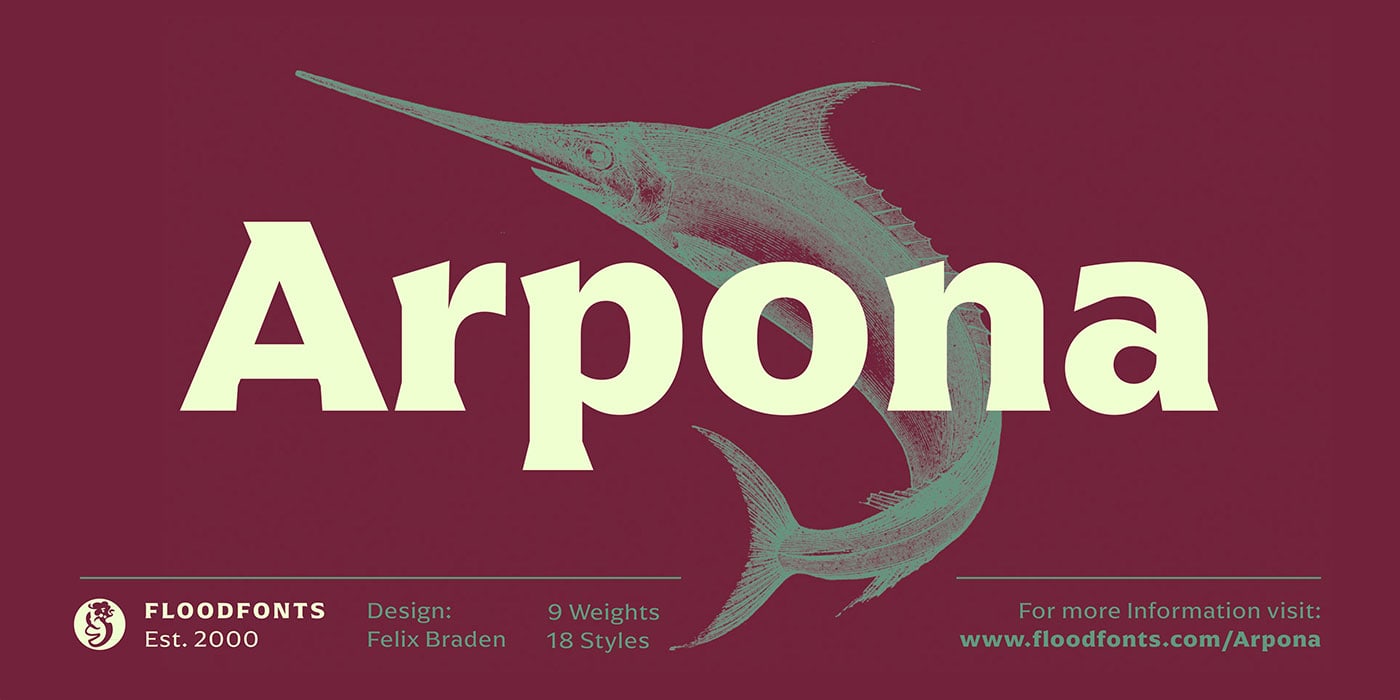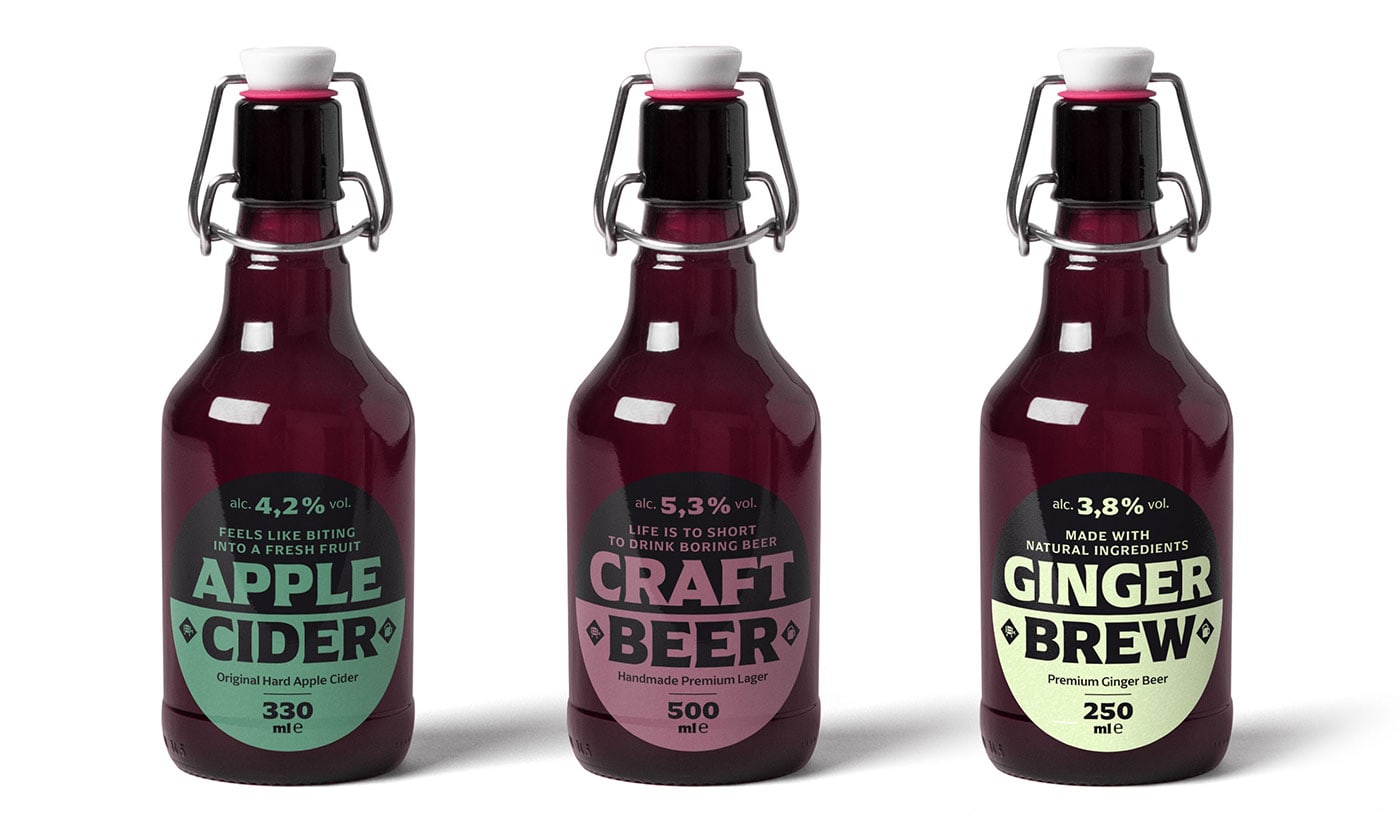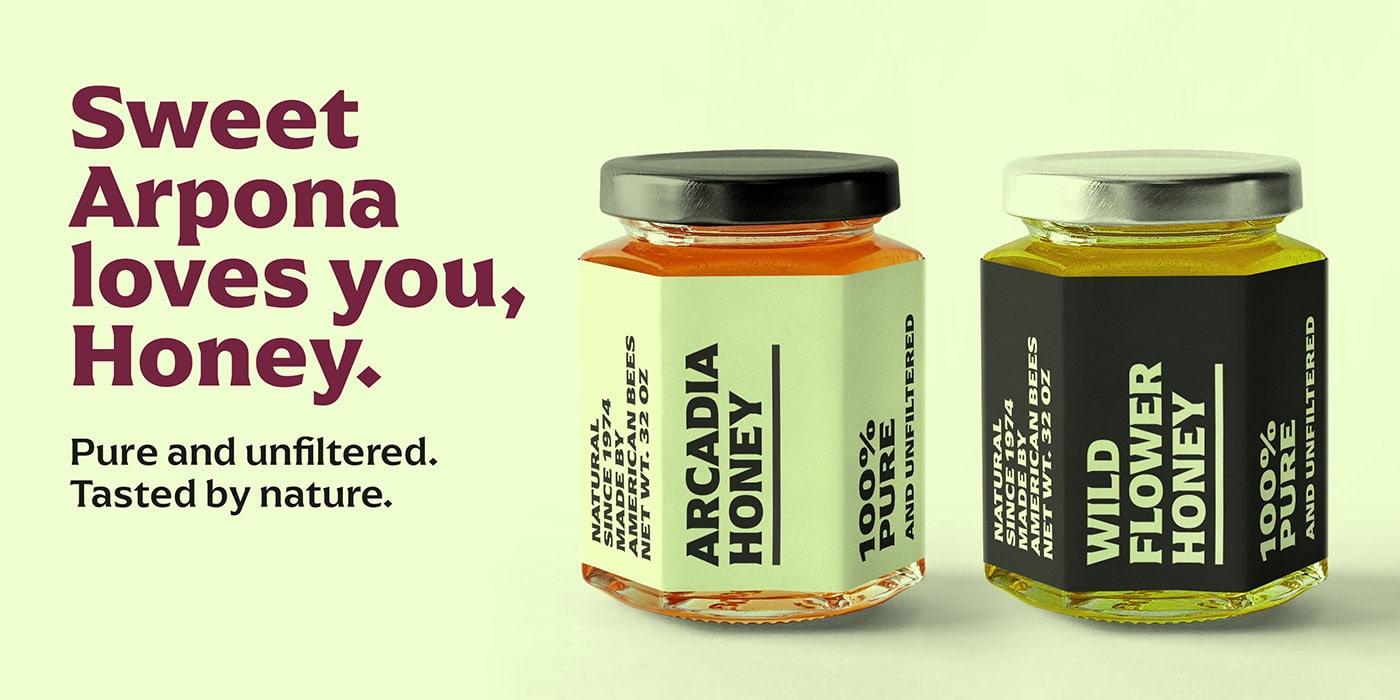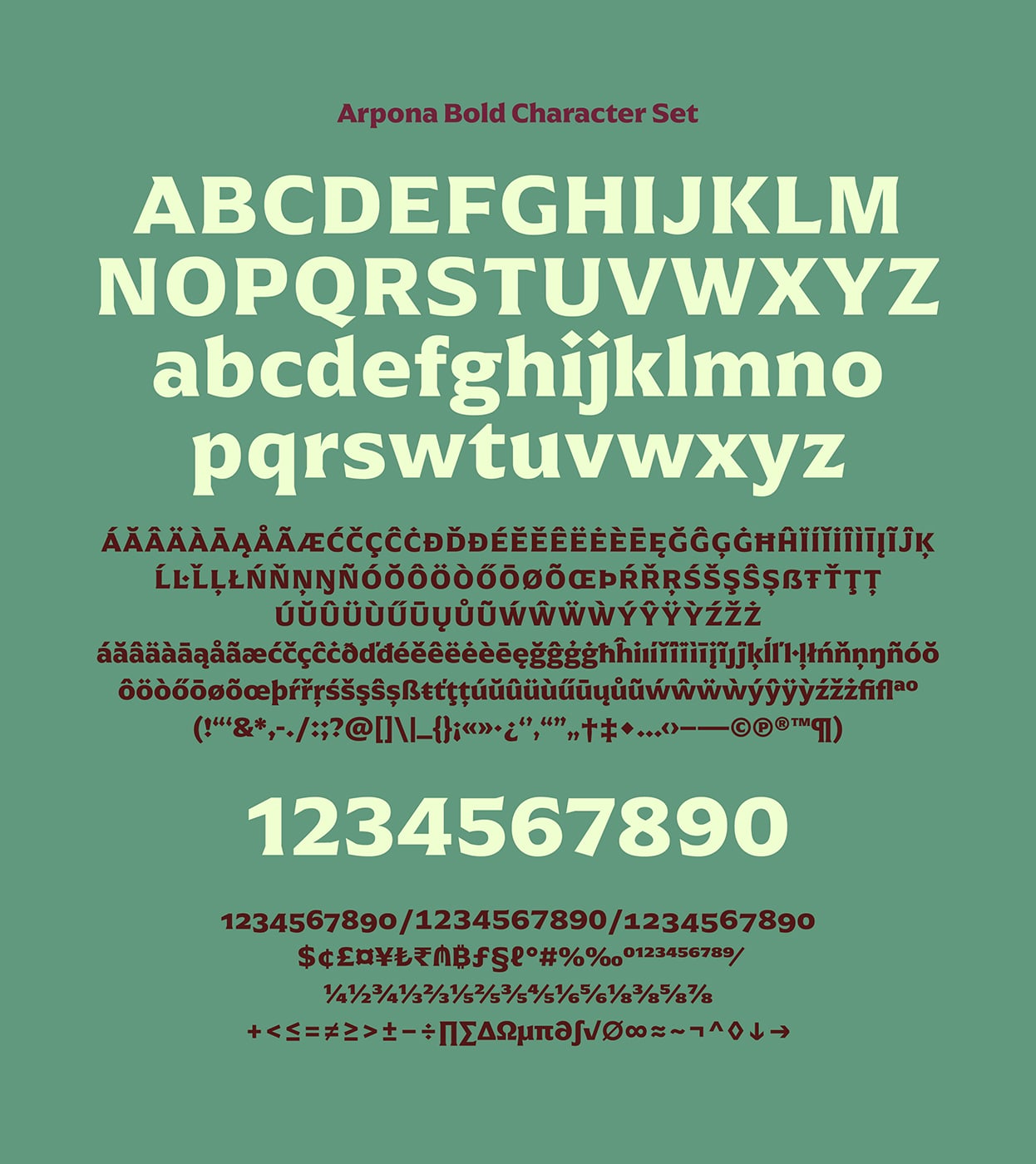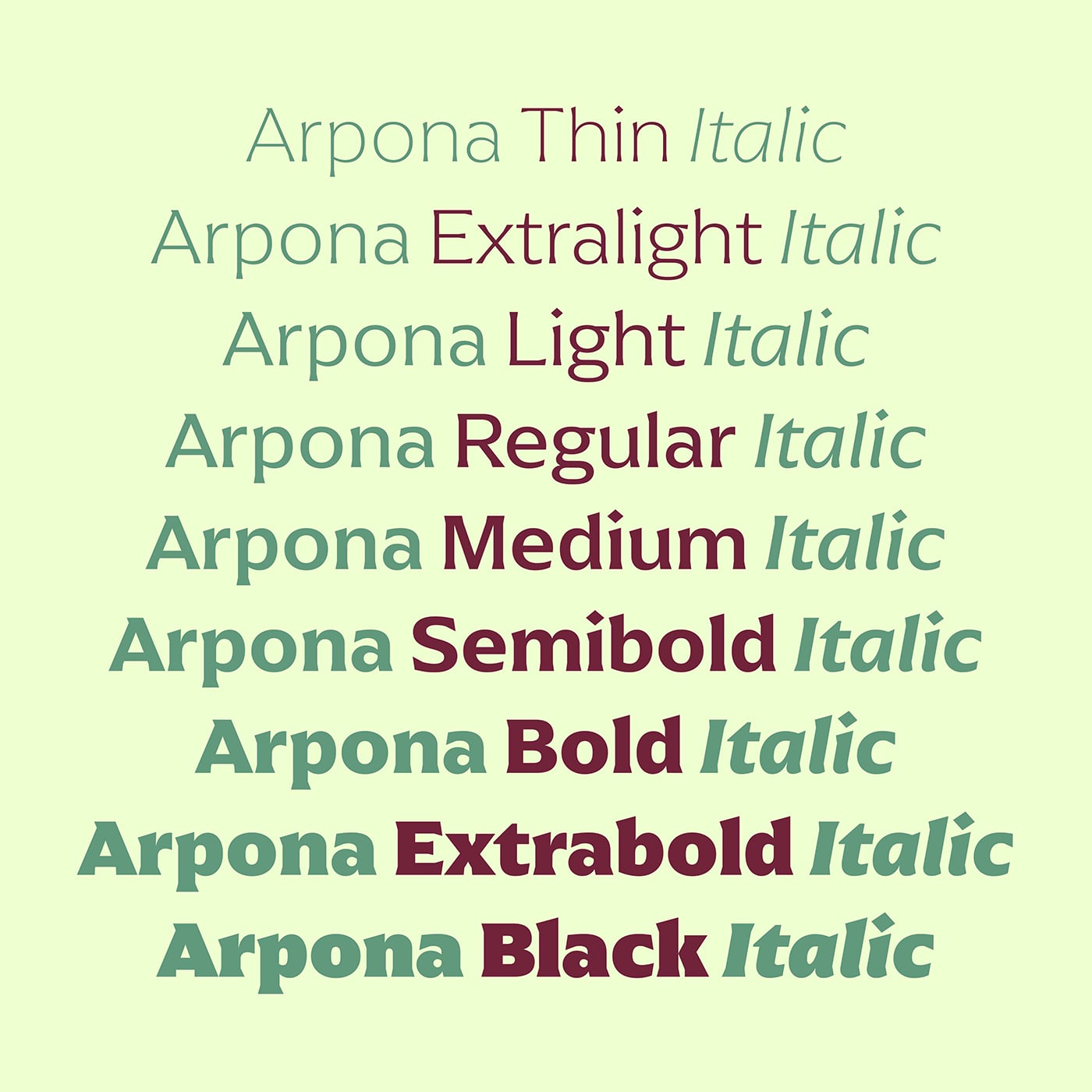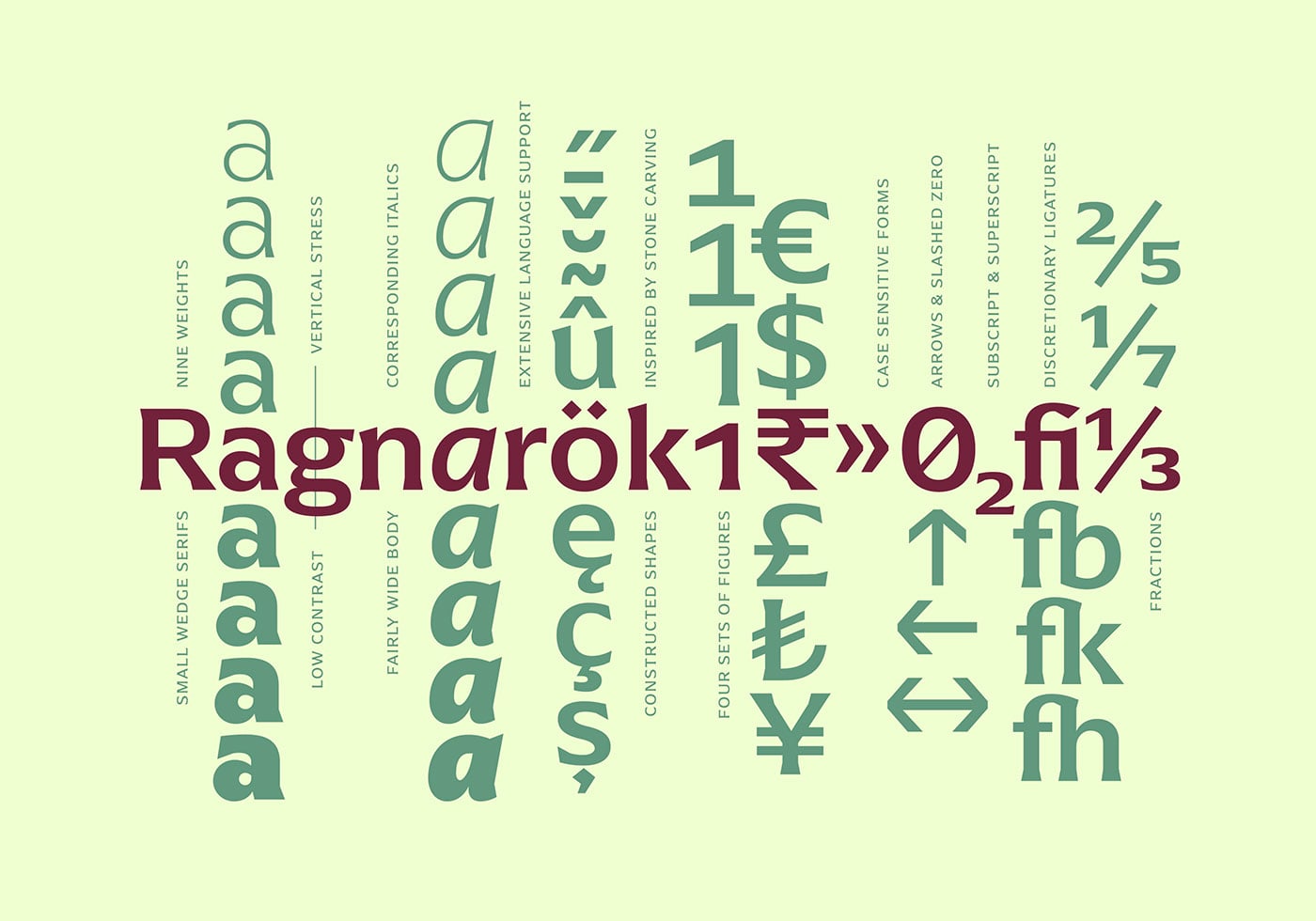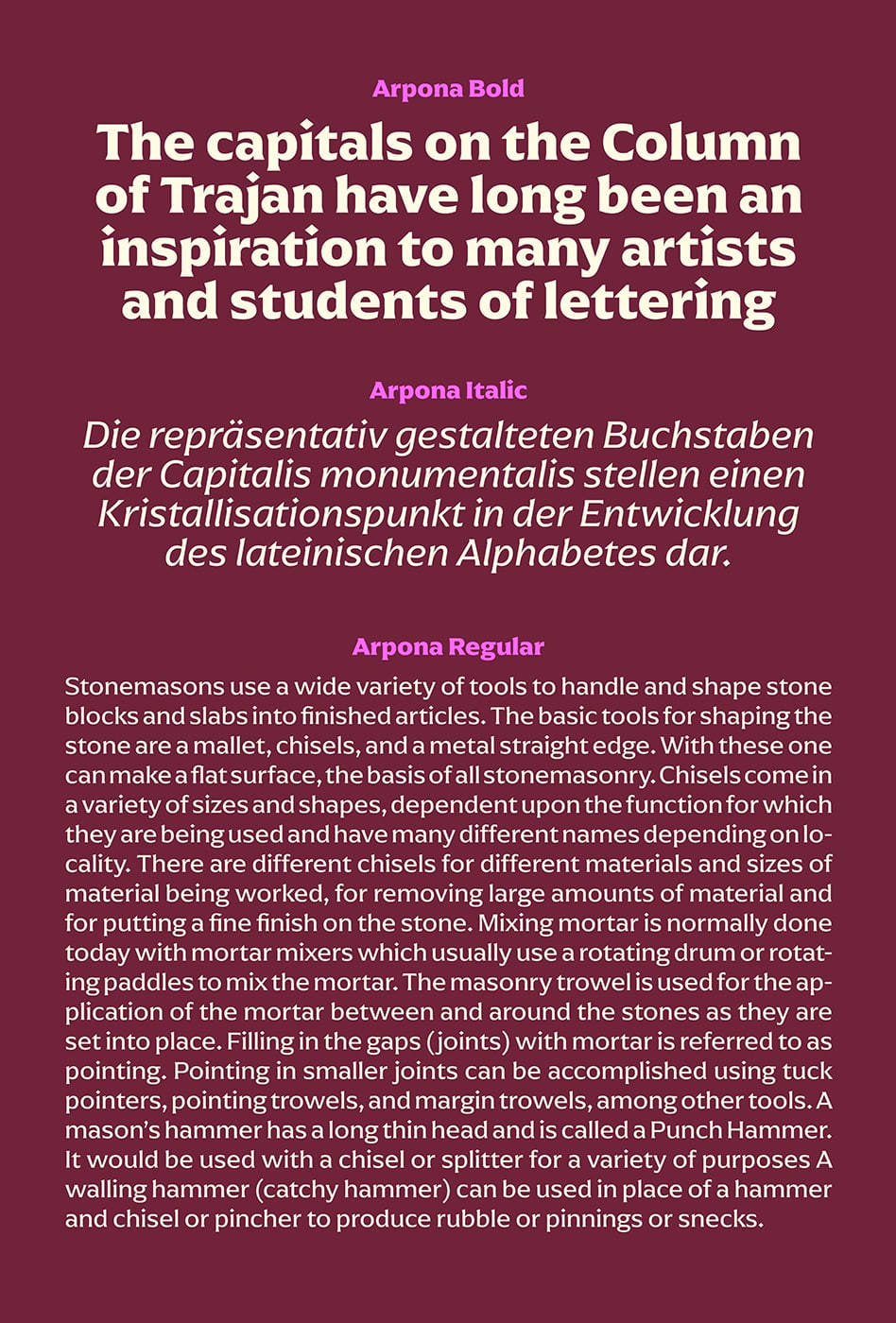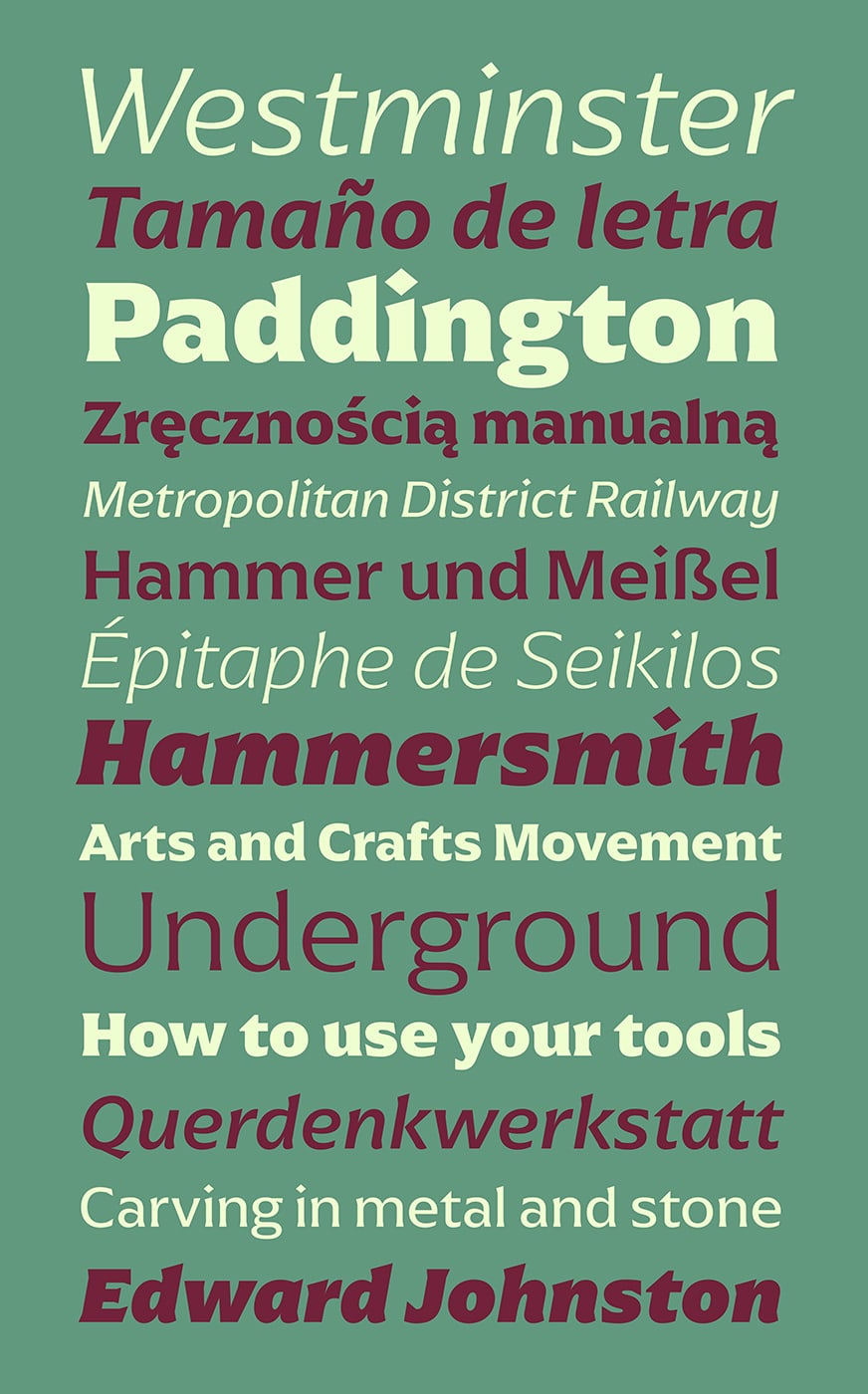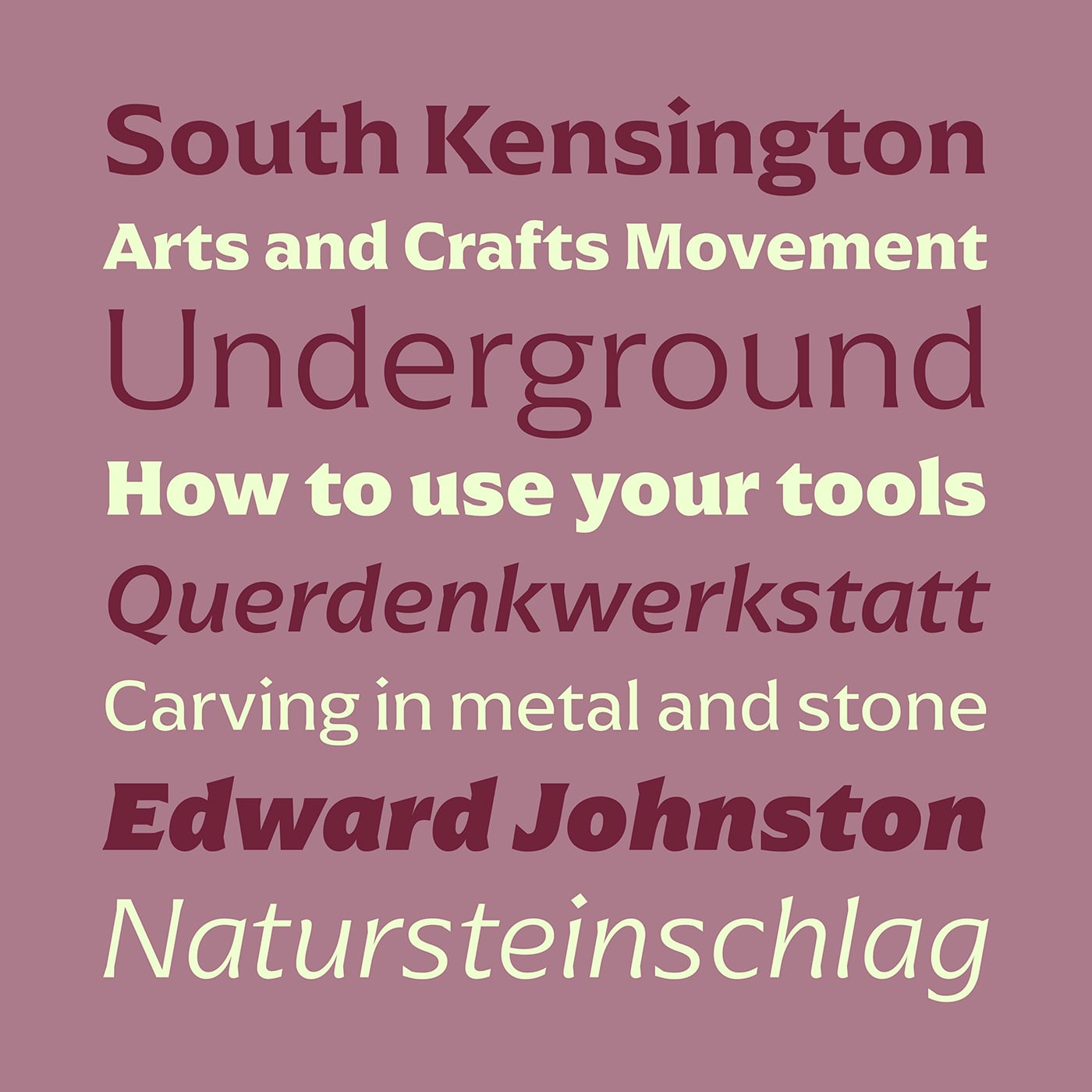
Felix Braden @ Floodfonts designed Arpona font. Arpona is a typeface with small wedge serifs and a strong character, ideal for corporate design and all projects characterized by a sense of individualism – for example art, fashion, food, beverage and lifestyle topics.
Arpona is inspired by roman letters carved in stone but otherwise difficult to categorize. It is neither a pure serif nor a sans but rather a symbiosis of different design concepts. Because of its display qualities, Arpona is a good choice for packaging, advertising and editorial design and is well readable even in running text on screen.
The family has nine weights, ranging from Thin to Black plus corresponding italics. Each style includes 590 glyphs supporting all western-, eastern- and central-european languages including four sets of figures and various currency symbols.